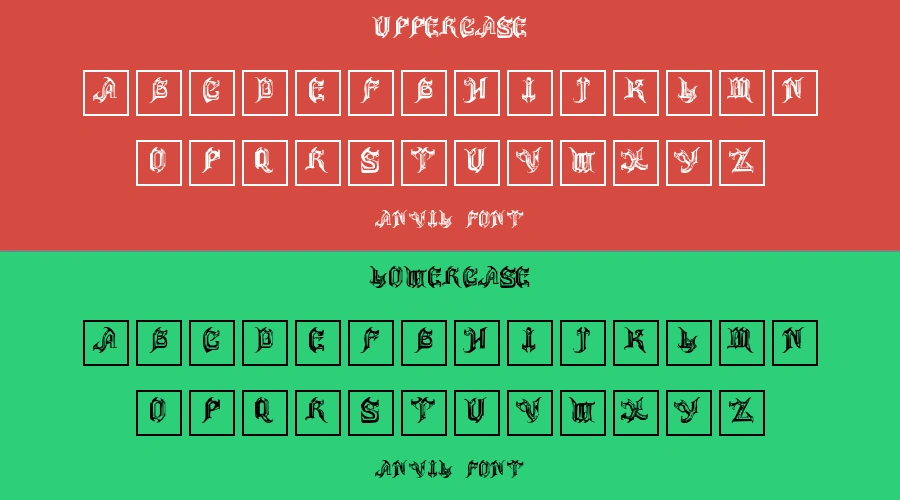
About Anvil Font
Anvil Font embodies typographic excellence through its masterful combination of width contrast and visual appeal. Created for marketing materials, this typeface delivers exceptional scalability and reliability across all applications. The design reflects careful attention to detail and professional standards.
Advanced capabilities include distinctive engineered curves and versatile word marks, giving designers creative control. When used in digital banners, Anvil Font exhibits remarkable archive stability. The harmonious balance between aperture size and emotional appeal sets this typeface apart.